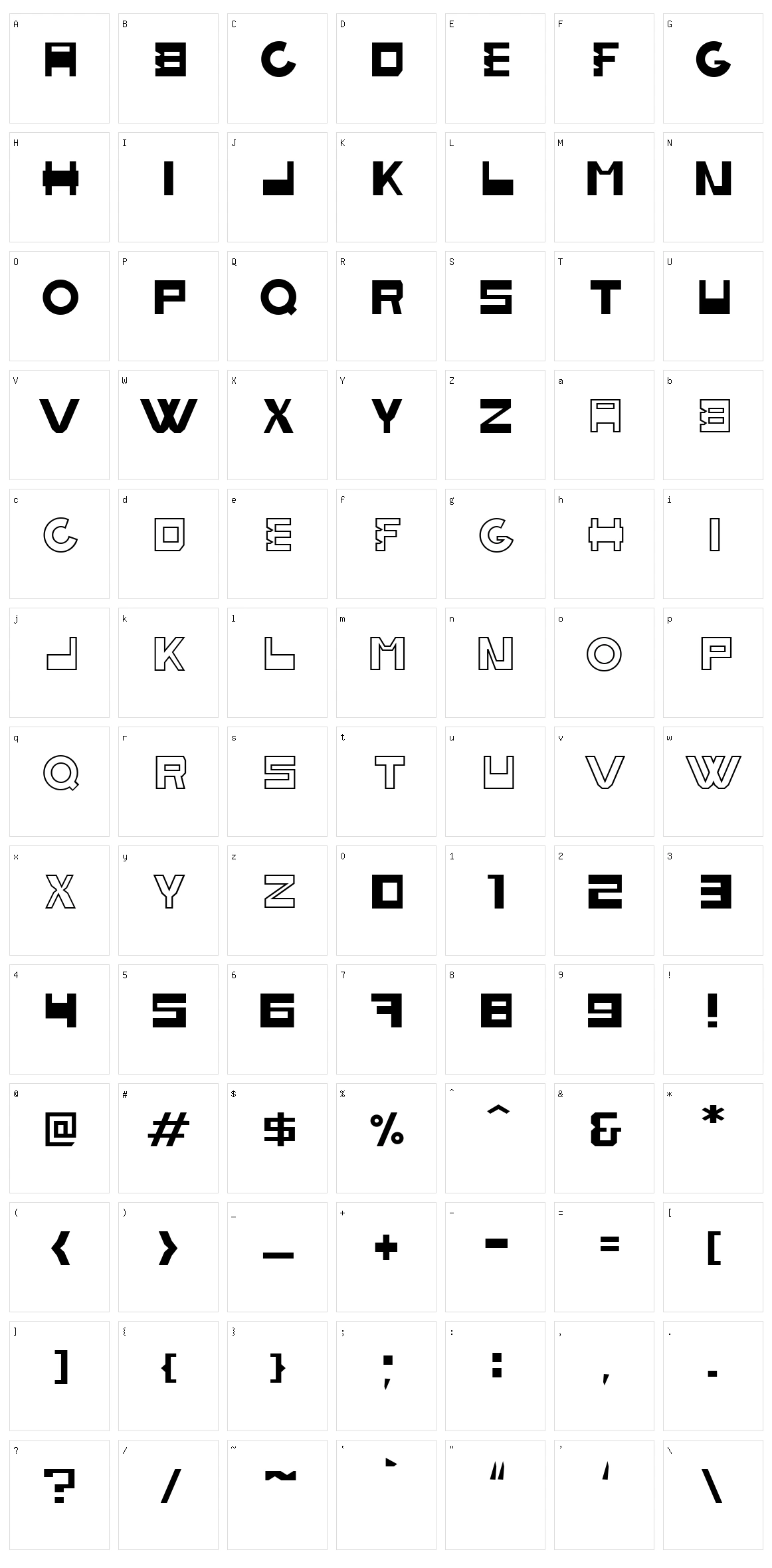
The free font BoBardi is carefully designed by Nick A., showcasing a thoughtful balance of creativity and usability and falls under the Square font style. When you download the ZIP file, it contains only 3113.49 KB of font files, making it lightweight and quick to download. Please review the license details below to understand permitted usage and distribution rights. If license information is not available, we recommend using this font for personal projects only or contacting the author directly for commercial usage permissions.
BoBardi Display Font was created by Ion Neto, Lara Benedet and Nicholas Auler.